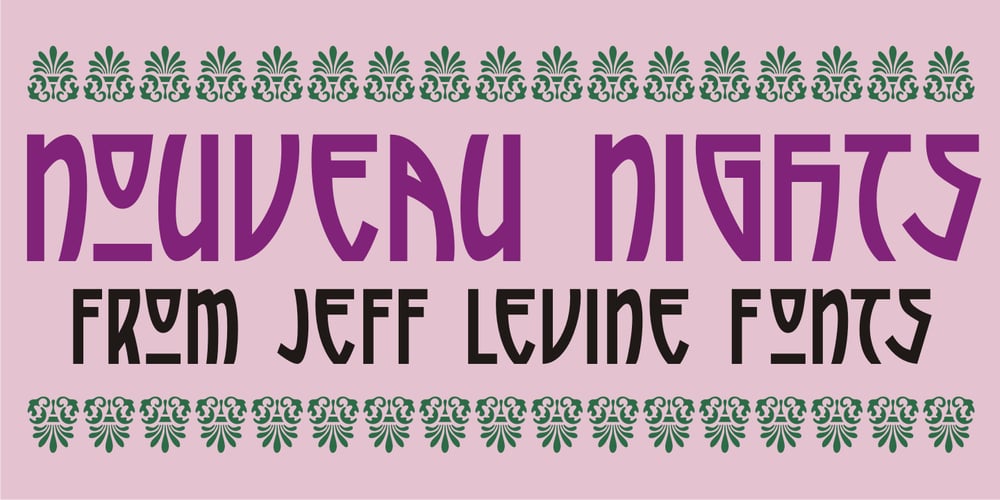
Nouveau Nights JNL Font Family was designed by Jeff Levine and published by Jeff Levine. Nouveau Nights JNL contains 1 styles and family package options. The deep well of creativity that is the era of the hand lettered sheet music title page brings forth Nouveau Nights JNL. Re-drawn from a period example of the 1920s, this titling font perfectly captures the warm “human” look of pen and ink lettering, long before the advent of “perfect” digital type.